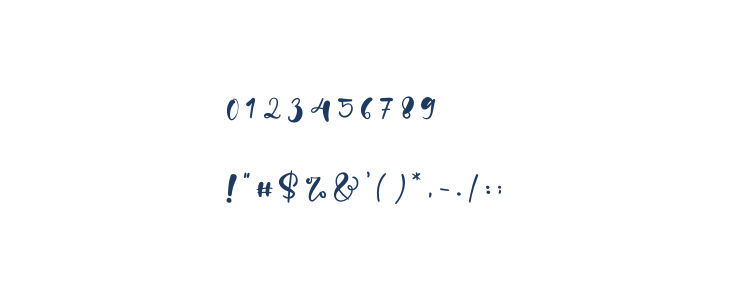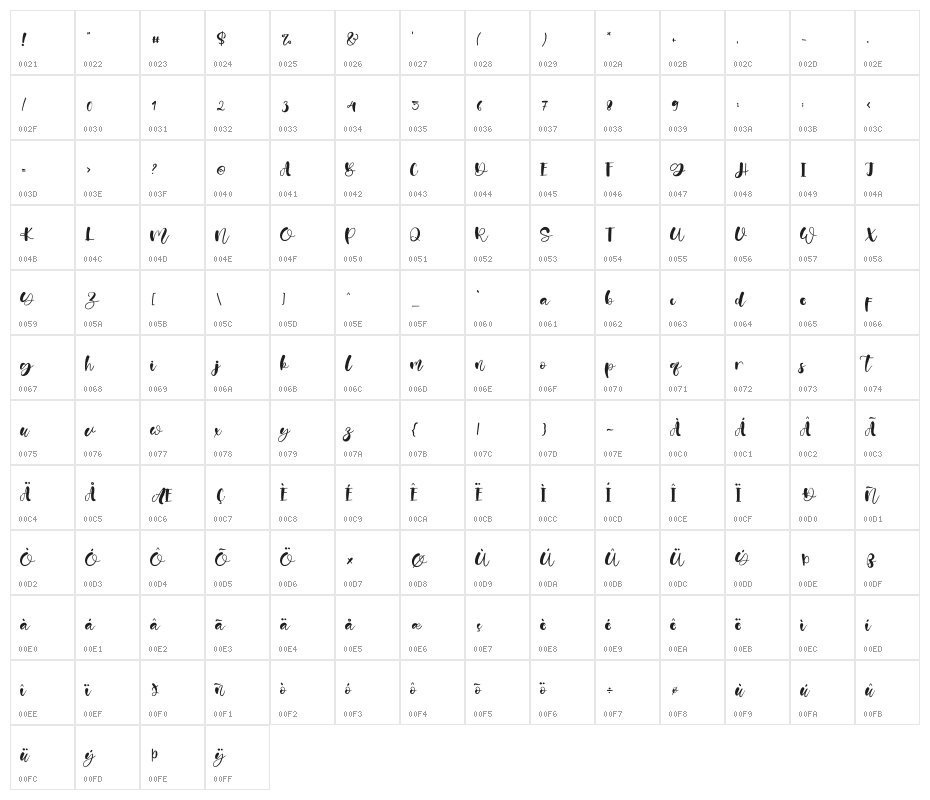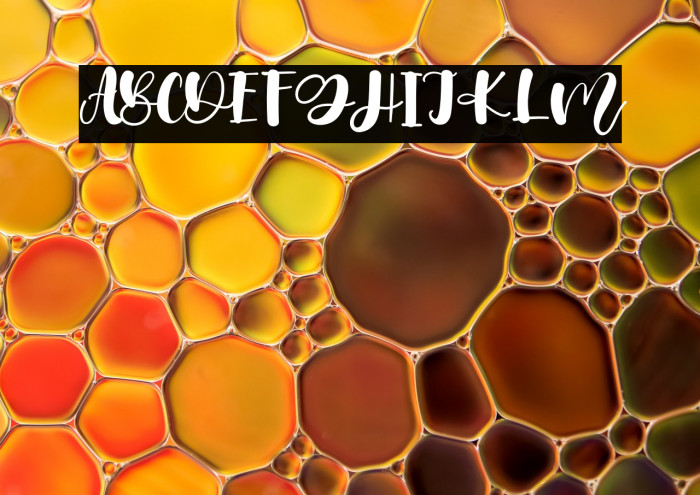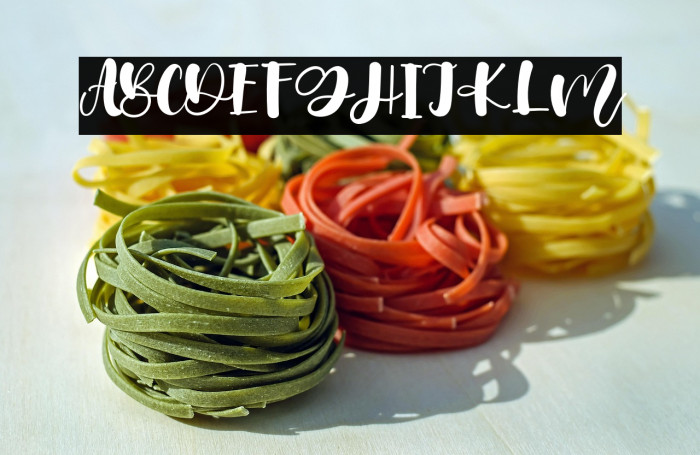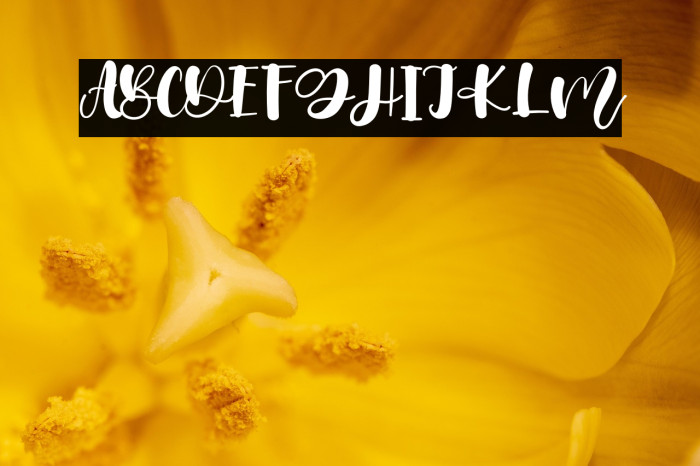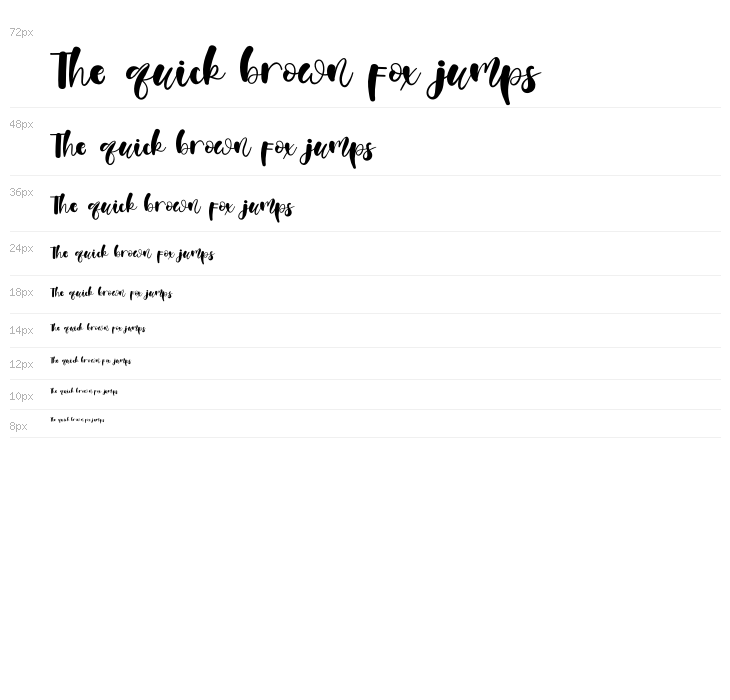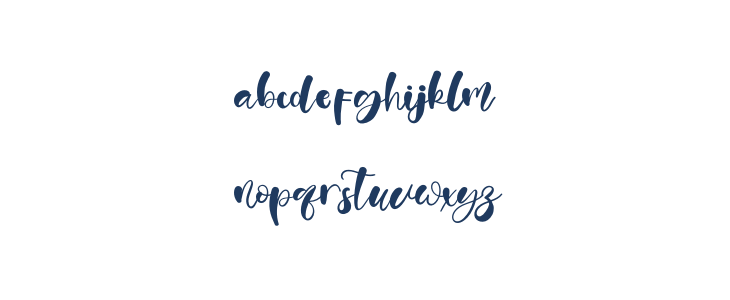
Bigger Font
Bigger Description
This font features a playful and elegant script style with a handwritten appearance. The uppercase letters are bold and flowing, with a distinctive loop and swirl design that adds a touch of whimsy. The lowercase letters maintain a consistent style, with smooth curves and rounded edges that enhance readability. Numbers and special characters are designed to match the overall aesthetic, providing a cohesive look. The font's artistic flair makes it suitable for creative projects, offering a balance between sophistication and approachability.